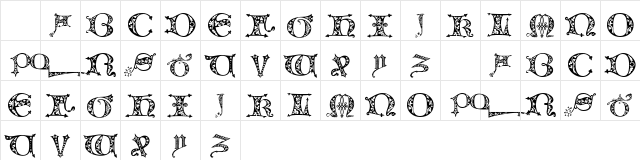
Complete 101! Medieval Alpha Regular glyph index. Displaying only characters natively supported by 101! Medieval Alpha Regular font.
101! Medieval Alpha is a composed and adaptable typeface that performs quietly and consistently across a wide range of design contexts.